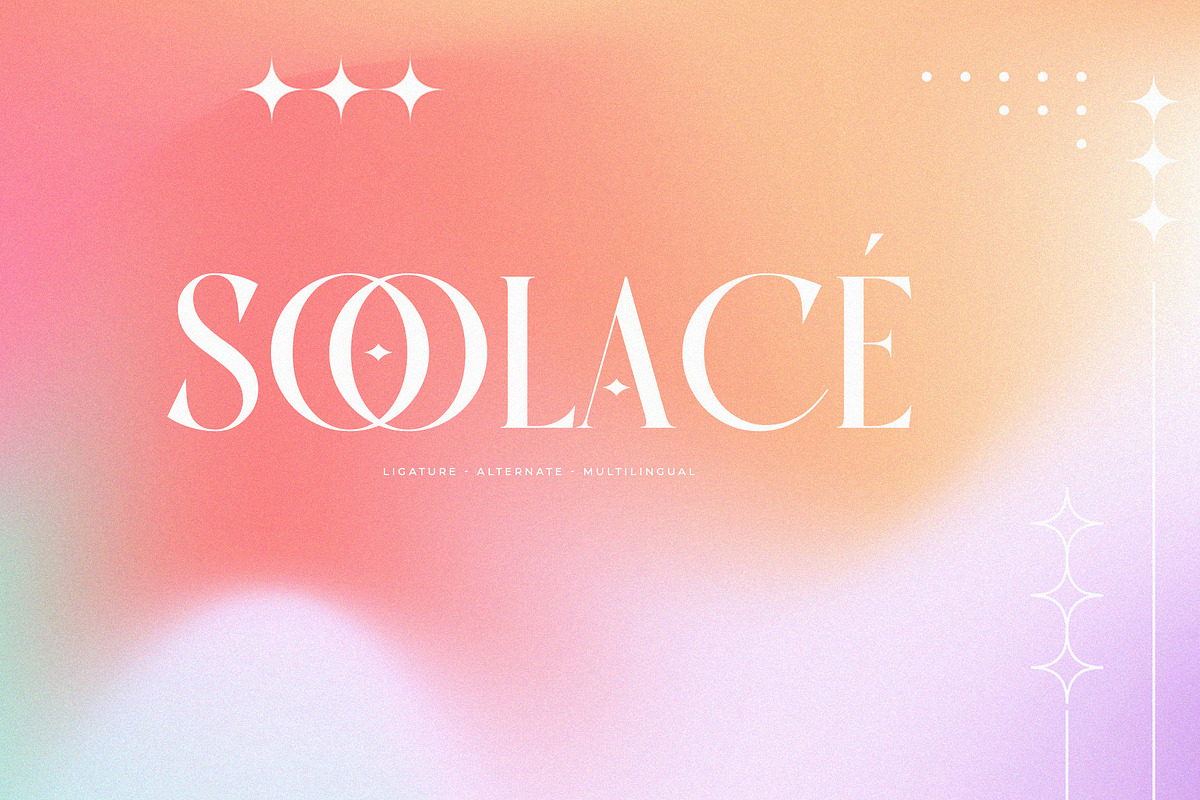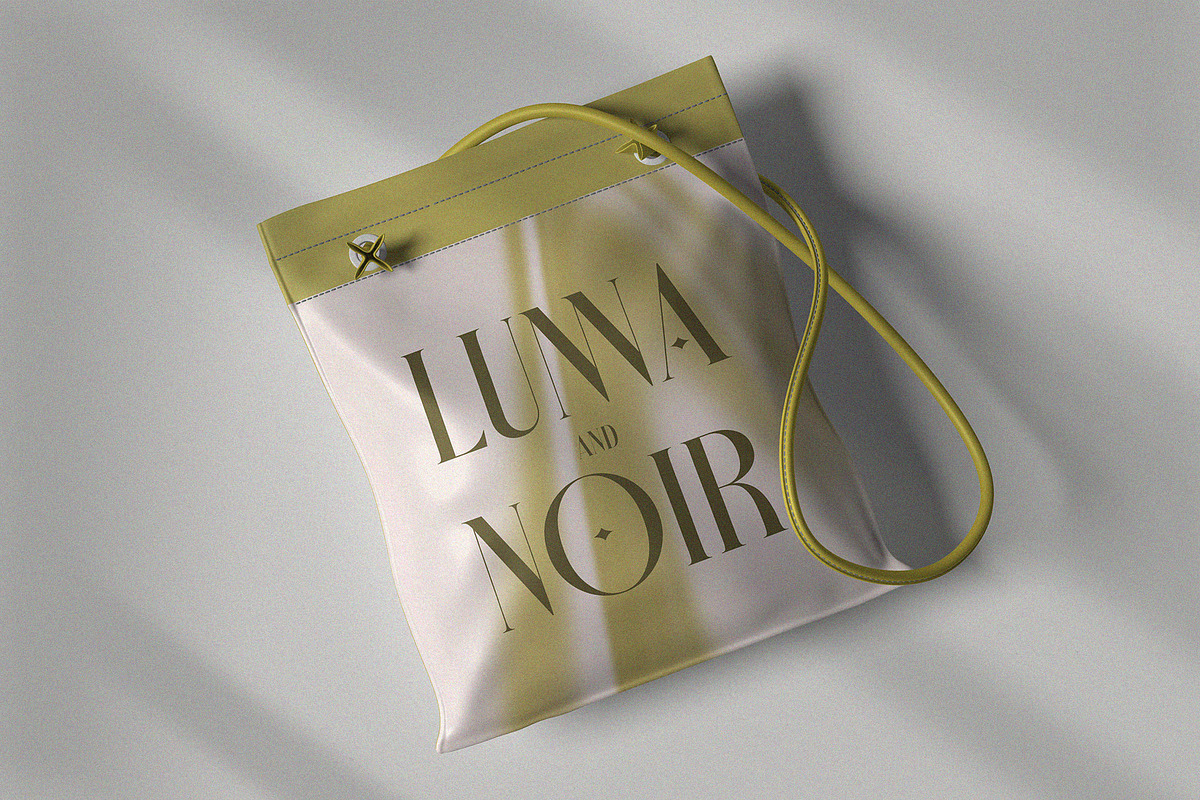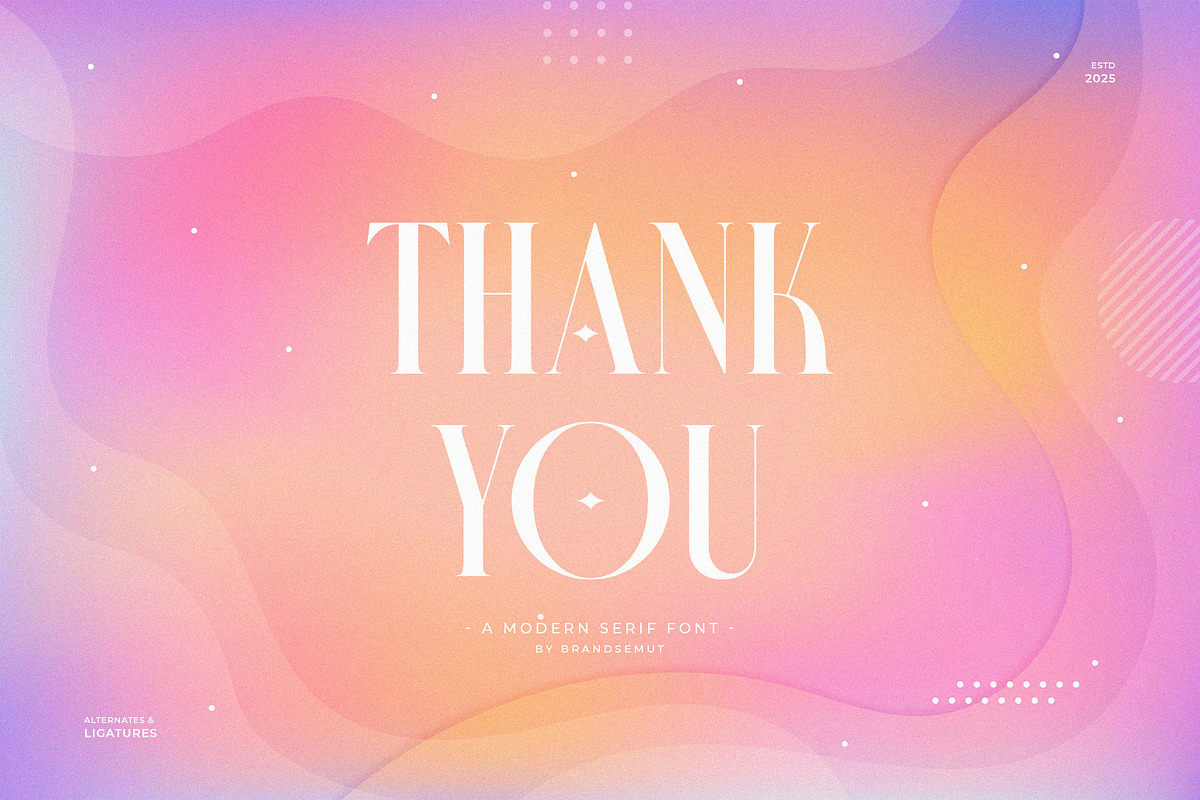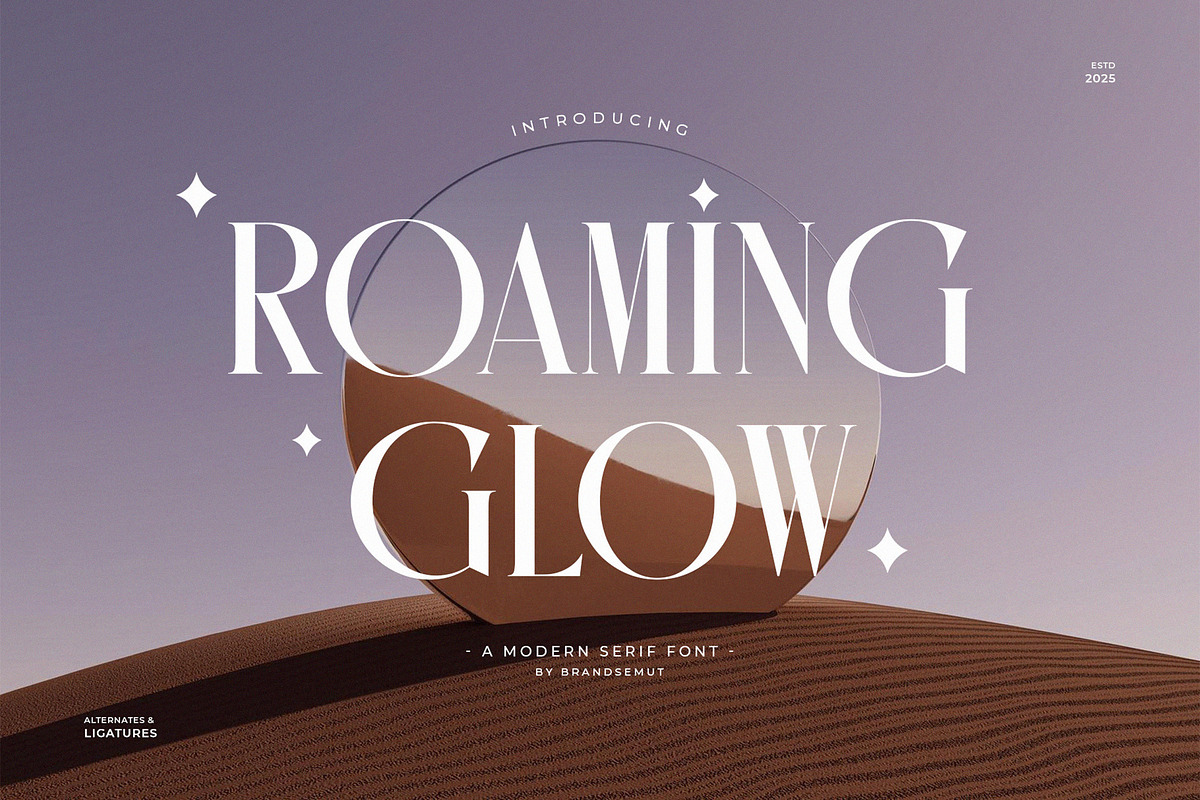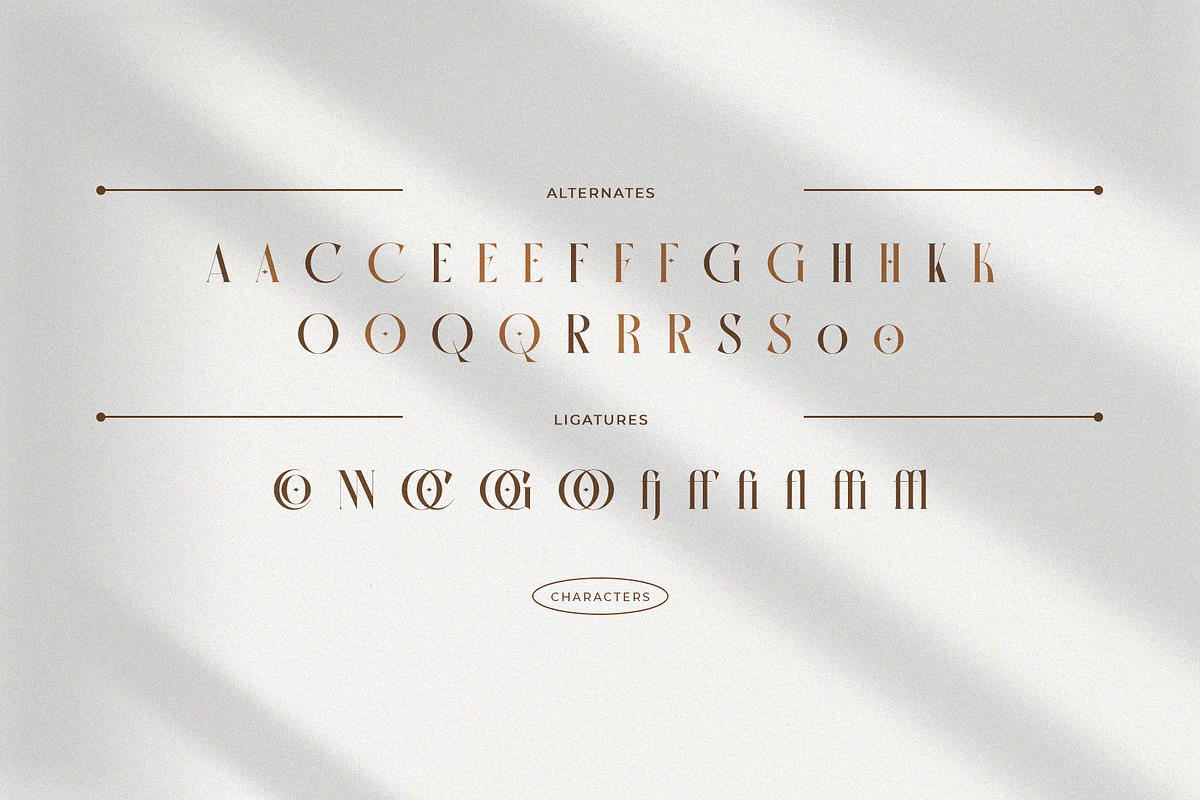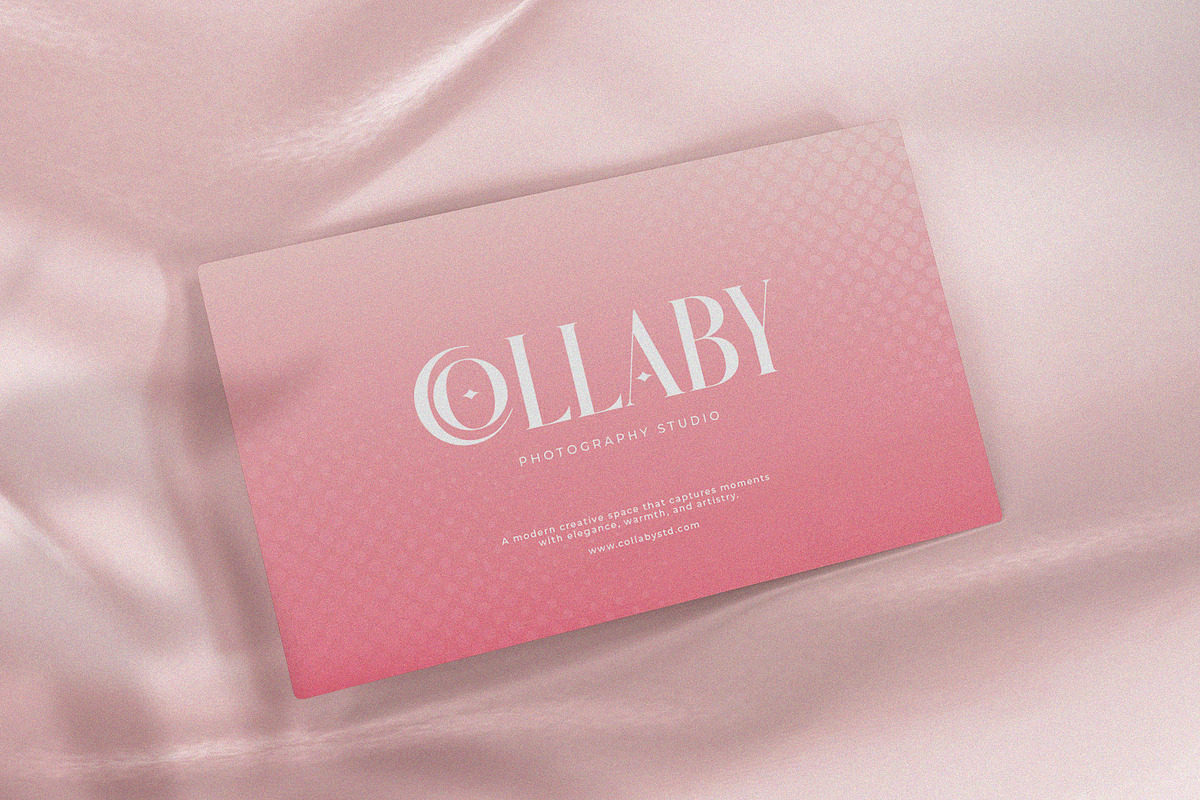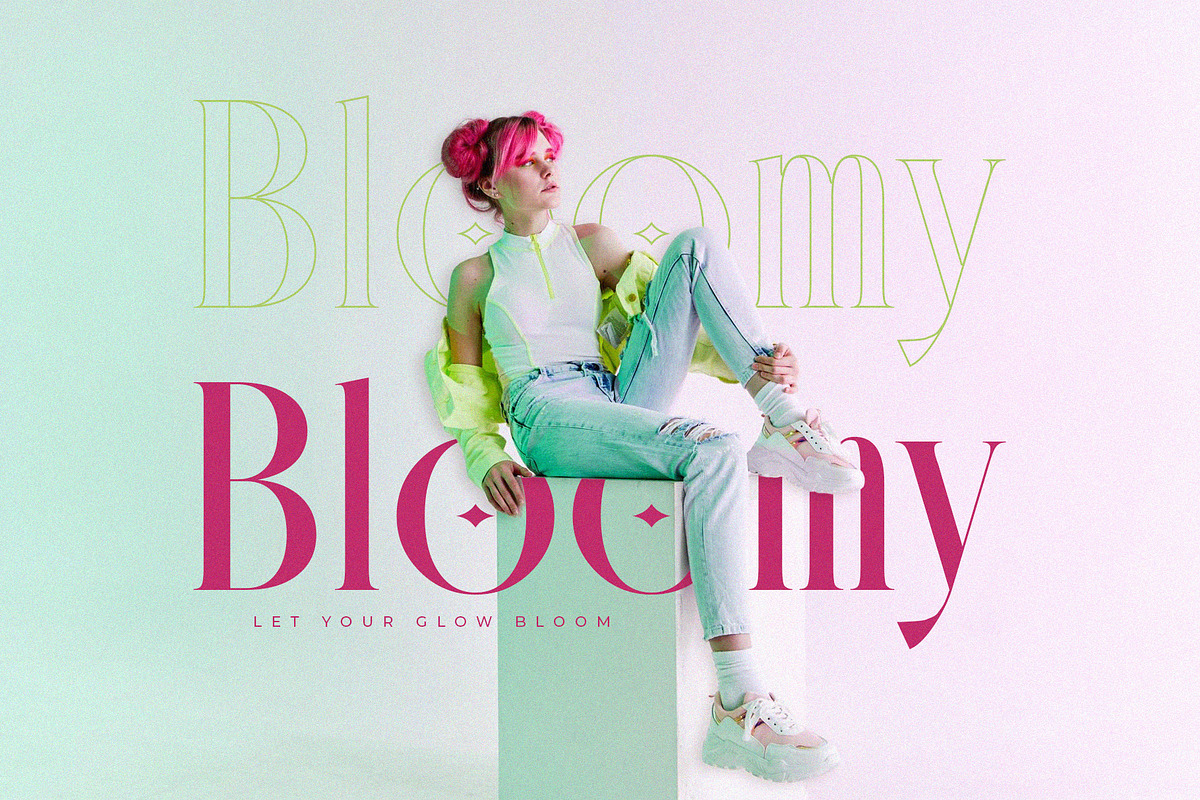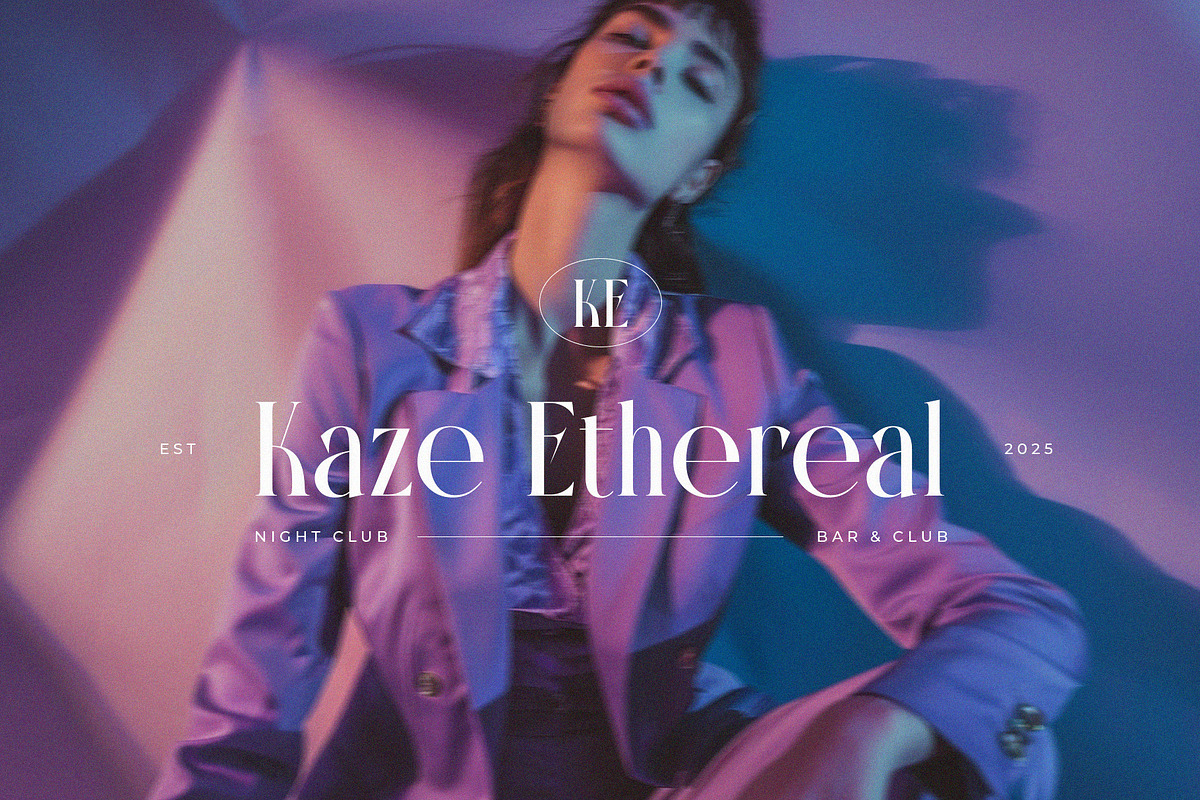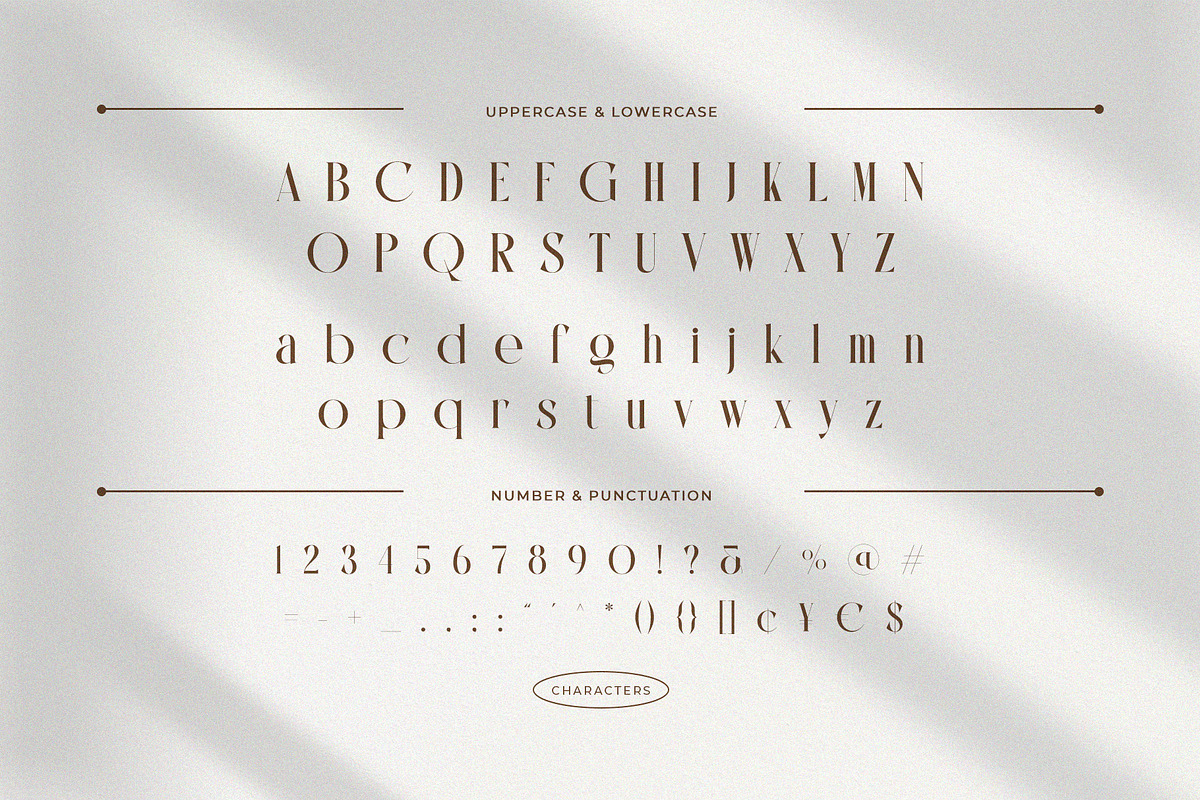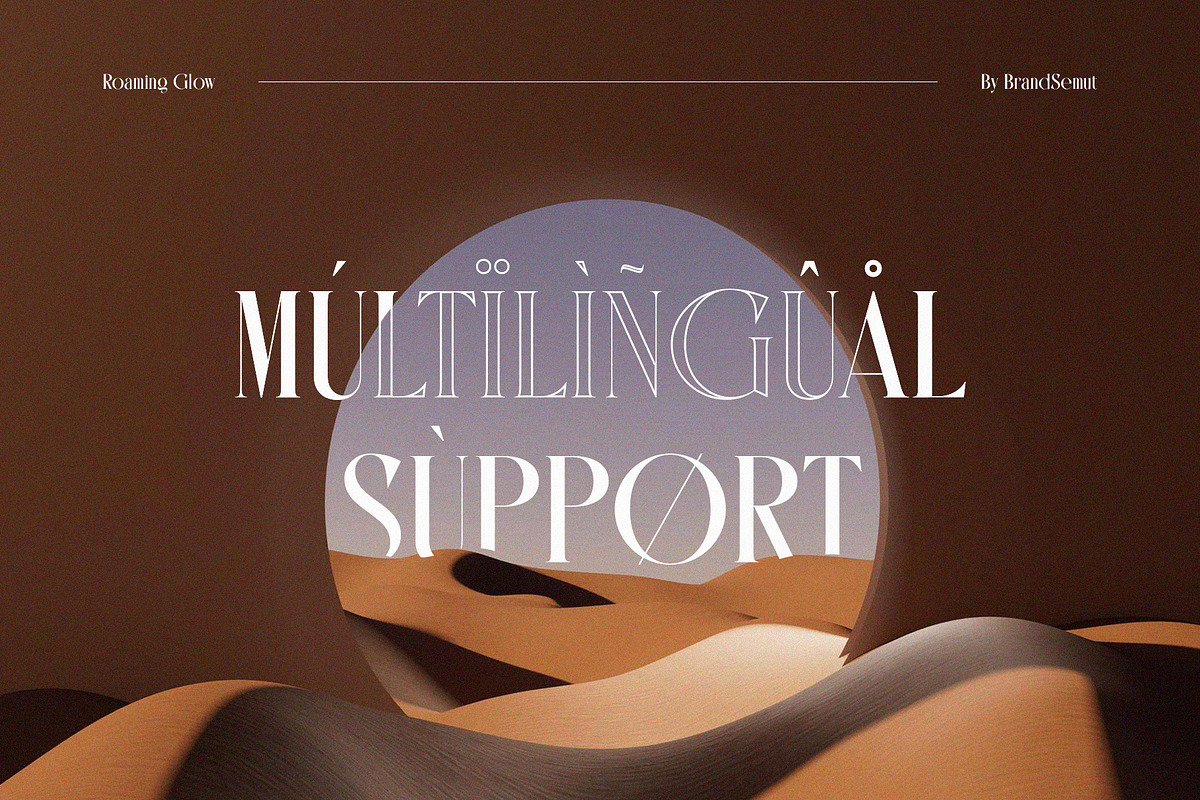
Roaming Glow – Elegant Modern Serif
Roaming Glow – Elegant Modern Serif Font with Uppercase & Lowercase, Alternates & Ligatures for Luxury Editorial Design
Roaming Glow is a modern and elegant serif font designed to capture visual imagination through expressive shapes and graceful detail. Featuring a complete set of uppercase and lowercase letters, as well as stylish alternates and ligatures, Roaming Glow brings a unique charm to editorial layouts, branding, packaging, and creative visuals that demand sophistication.
Inspired by cinematic flair and timeless typography, this typeface is ideal for designers who want to make a bold, artistic, and luxurious impression.
- Editorial magazine titles & fashion layouts
- Cinematic posters & storytelling graphics
- Beauty and luxury branding
- High-end product packaging
- Modern wedding invitations & creative typography
- Uppercase & lowercase alphabets
- Elegant serif style with high contrast
- Alternates & discretionary ligatures included
Let Roaming Glow light up your next project with refined beauty and bold expression — a serif font crafted for dreamers and storytellers.